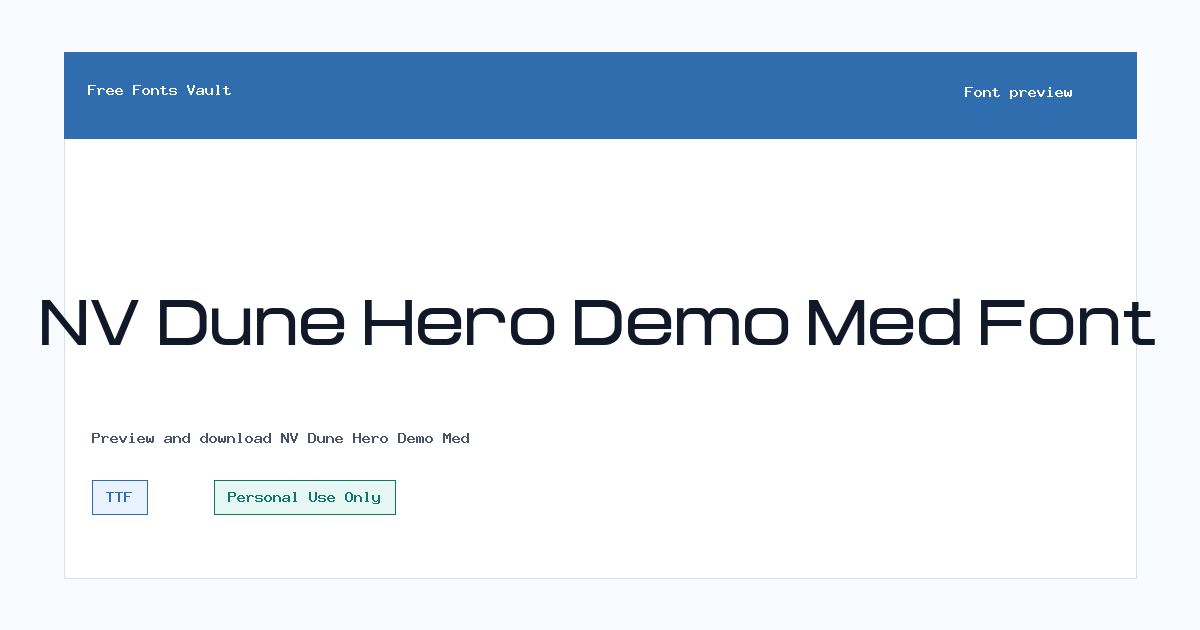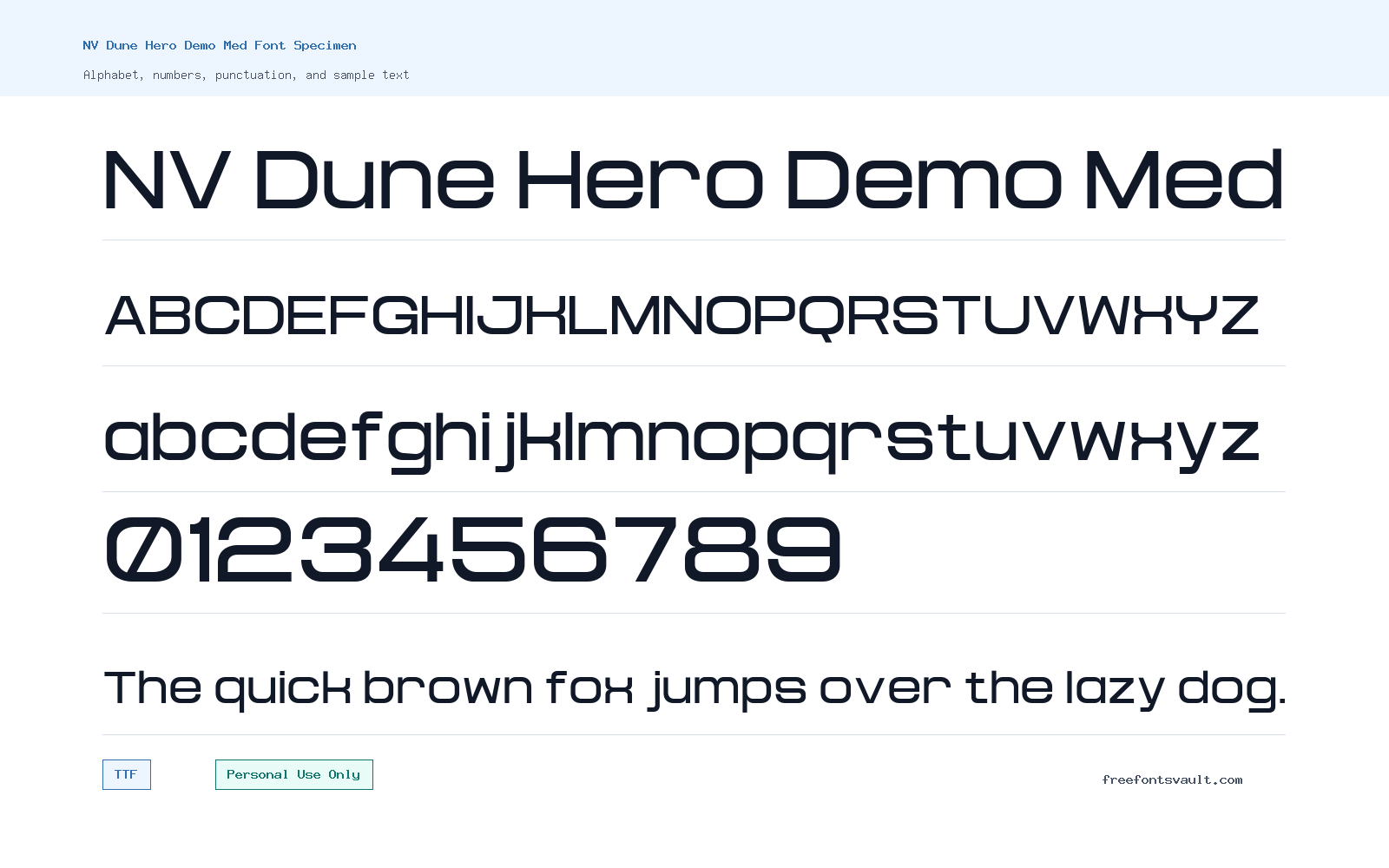
NV Dune Hero Demo Med
NV Dune Hero Demo Med font.
NV Dune Hero Demo Med is a demo TrueType font from NovaraType with a personal-use license. It is best approached as a display-friendly sans serif to test in previews, mockups, and non-commercial design drafts before deciding whether it fits a larger project.
About NV Dune Hero Demo Med
NV Dune Hero Demo Med is identified as part of the NV Dune Hero Sans Serif Font Family. The downloadable file is a TTF font in a regular style with a 500 weight, which usually sits around a medium weight rather than a light or heavy cut. That makes it a useful style to test when you want letters that feel more present than regular body text but not as forceful as a bold headline. Because the name marks it as a demo font, it is best used for evaluation, personal layouts, and early concept work rather than assuming it covers a full professional type system.
For visitors comparing fonts, start by typing the exact words you plan to use: a brand name, poster title, game title, channel banner, or short heading. Check spacing between uppercase letters, how the font handles numbers, and whether punctuation looks balanced beside the words. A medium-weight sans serif can work well for strong titles, web mockup headers, social graphics, and logo drafts, but it may not be the best choice for long paragraphs unless the preview shows comfortable spacing at smaller sizes. If you are testing it for logo work, try it in one word, two words, and all caps. Some display-style sans serifs look clean in short names but become harder to read when stretched into long phrases.
The practical strength of NV Dune Hero Demo Med is its middle-weight presence. It can help a heading stand apart without relying on a very heavy font. Use it for title cards, poster mockups, gaming-style interface concepts, personal thumbnails, apparel mockups, and bold section headers. For web design drafts, test it in hero headings, navigation labels, and call-to-action text, then pair it with a simpler text face for paragraphs. A neutral serif, a humanist sans serif, or a plain system font can make a safer companion for body copy, especially if NV Dune Hero Demo Med is doing the visual work in the headline.
Pairing matters because medium display fonts can compete with other strong typefaces. Avoid matching it with another futuristic, geometric, or high-impact display font unless the design is intentionally loud. A calmer secondary font will give the layout more hierarchy. In a poster, use NV Dune Hero Demo Med for the main title and keep dates, credits, and small details in a clear supporting typeface. In a logo draft, test generous letter spacing and compare it against tighter spacing; the right choice will depend on the word shape, not just the font itself.
- Regular style with 500 weight, giving it a medium-weight feel for headings, mockups, and short display text.
- Identified as part of a sans serif font family, making it a practical candidate for modern title and interface-style testing.
- Personal poster titles and short headline layouts
- Logo drafts and wordmark experiments
- Gaming, sci-fi, or cinematic-style mockups where a compact sans serif heading is useful
- Website hero sections and landing page concept designs
- Social media graphics, thumbnails, and banner text for personal use
- App or interface mockups that need a stronger heading style
What weight is this font?
The listed font weight is 500, which is commonly treated as a medium weight.
Is this a serif or sans serif font?
The license text identifies it as part of the NV Dune Hero Sans Serif Font Family.
What should I pair with NV Dune Hero Demo Med?
Pair it with a simple, readable body font. A clean system sans serif or a restrained serif can keep paragraphs clear while NV Dune Hero Demo Med handles titles or short display text.
Is it good for long paragraphs?
It is better to test it first as a heading or short-text font. For long reading, use the preview to check spacing, lowercase clarity, and comfort at smaller sizes.